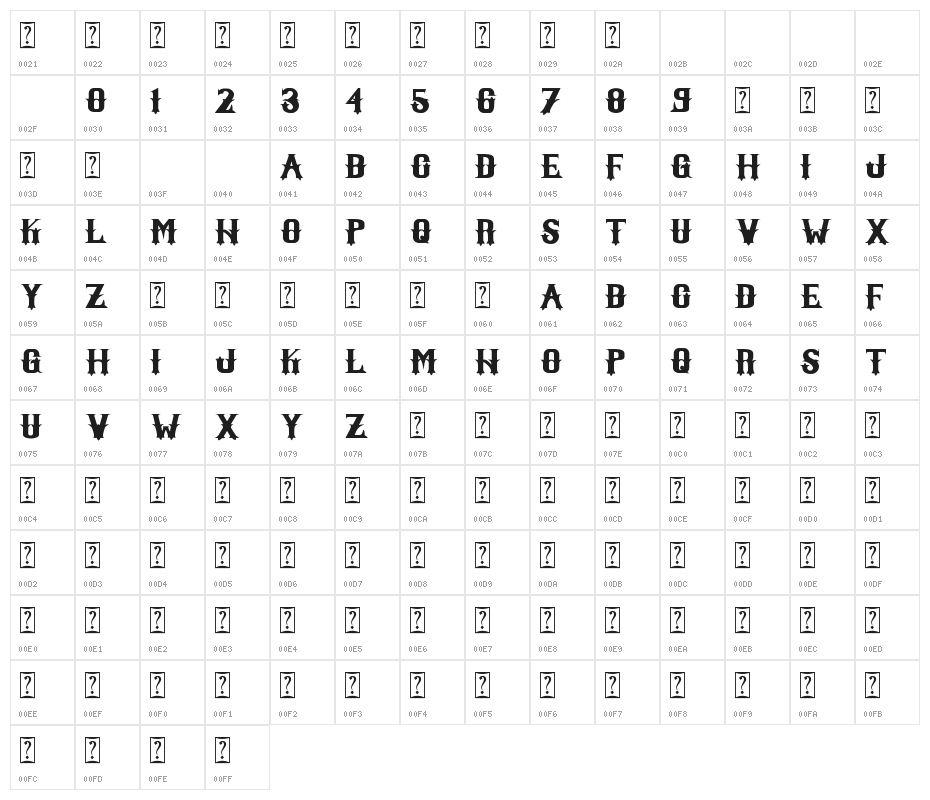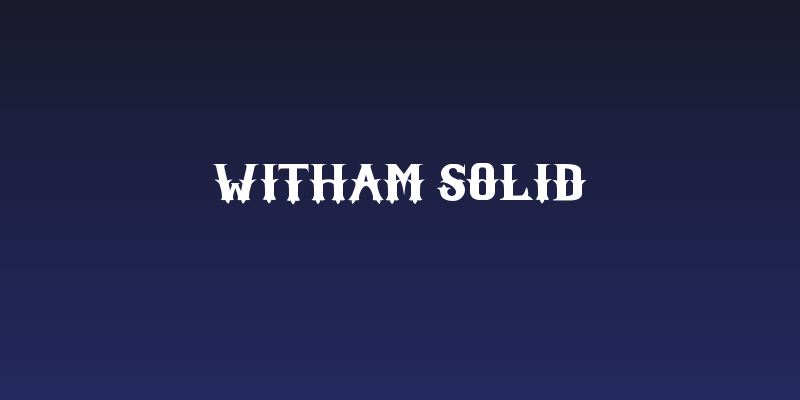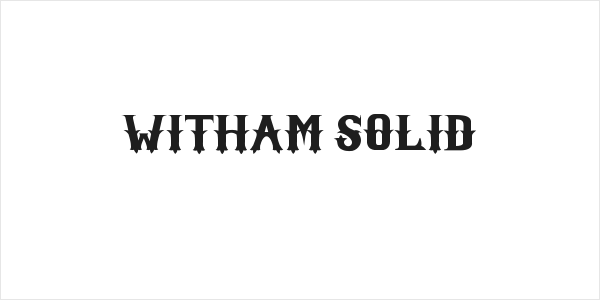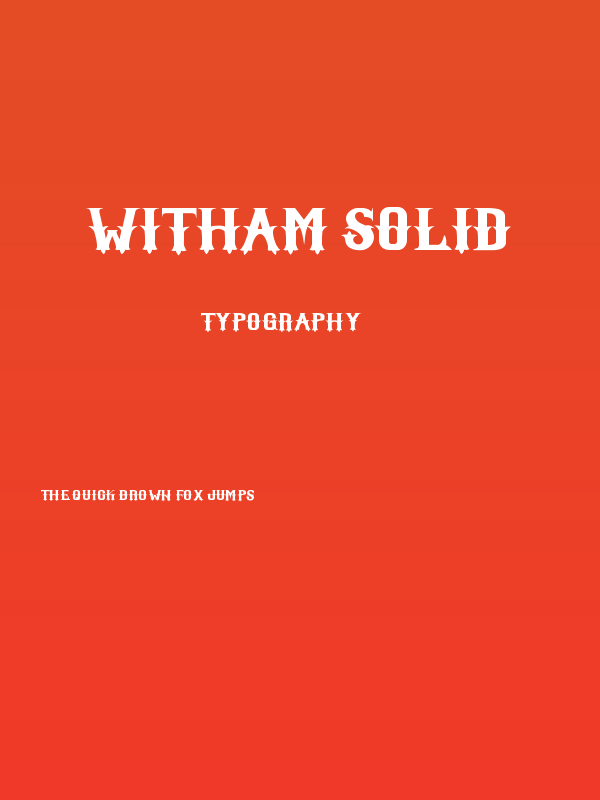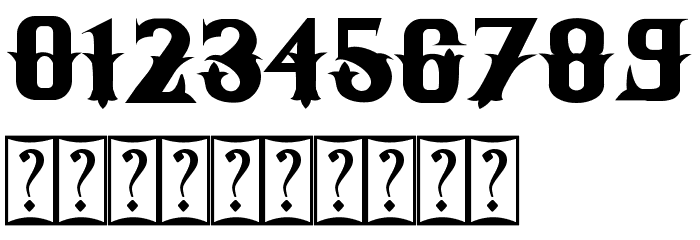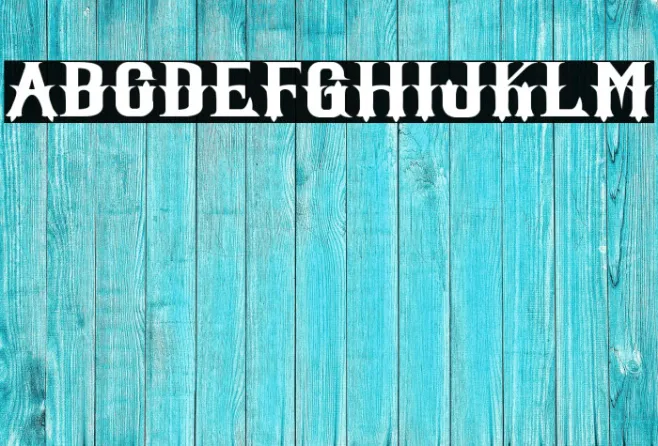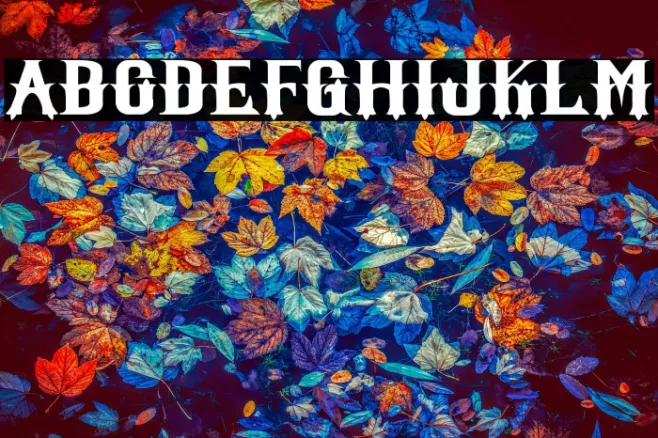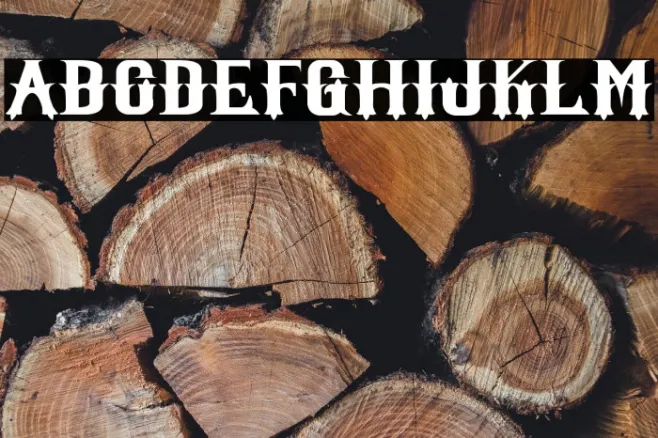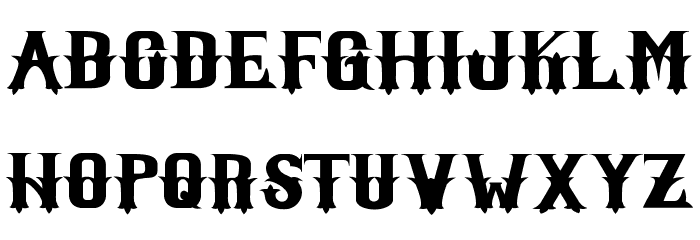
Witham Solid Font
Witham Solid Description
This font features a bold, decorative style with sharp, angular edges and a distinct gothic influence. The uppercase and lowercase letters are characterized by their dramatic serifs and unique cut-out shapes, giving them a striking appearance. The numbers and special characters maintain this bold aesthetic, ensuring consistency across the typeface. The overall design is reminiscent of vintage signage or poster art, making it ideal for projects that require a strong visual impact. The font's high contrast between thick and thin strokes enhances its readability while maintaining its decorative flair.
WITHAM-SOLID UPPERCASE
WITHAM-SOLID LOWERCASE
WITHAM-SOLID OTHER CHARS
| Overall Style | Vintage, Decorative |
| Proposed Projects | Ideal for vintage-themed posters, signage, branding, and any project needing a bold, eye-catching typeface. |